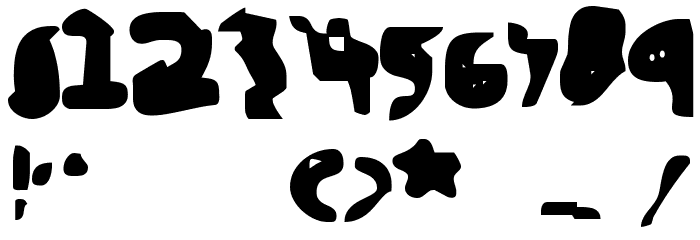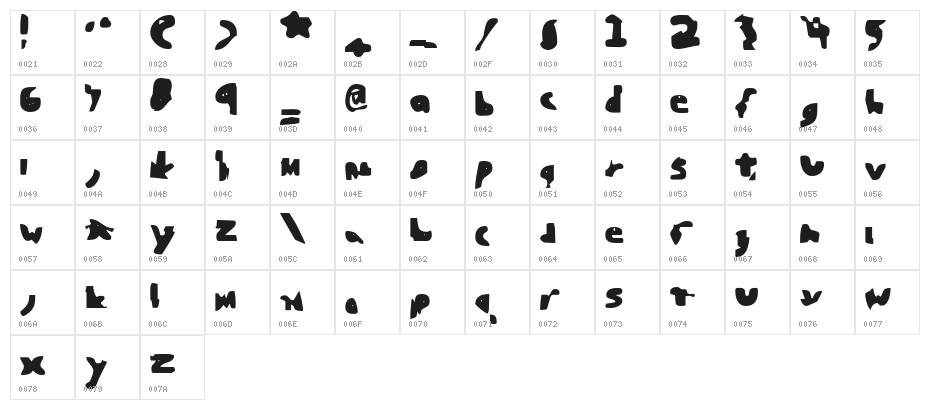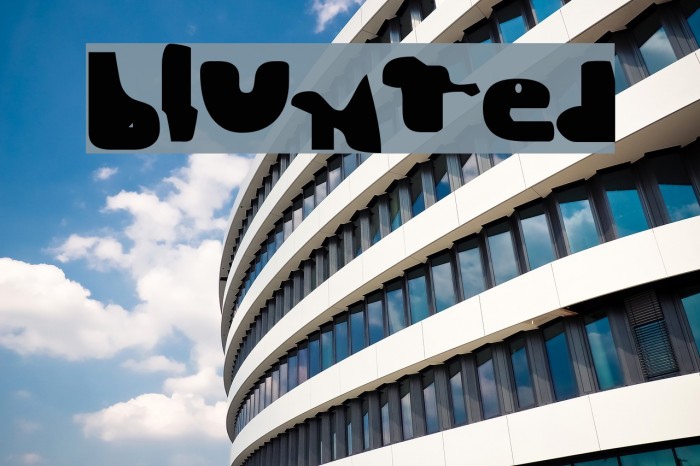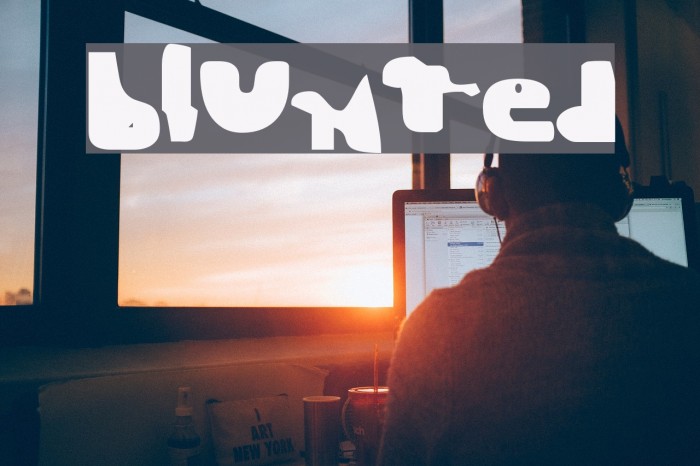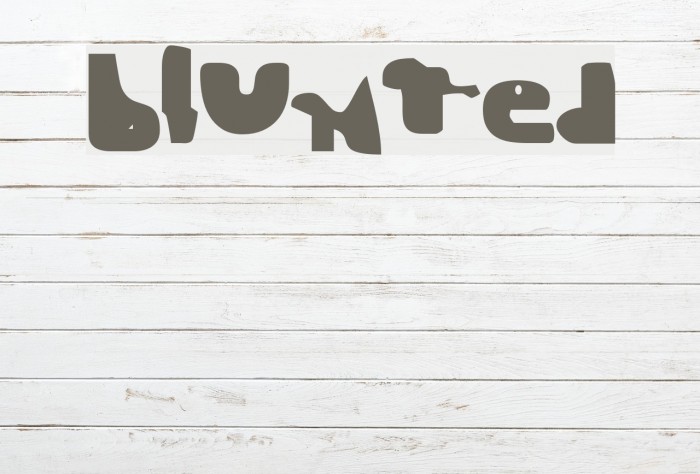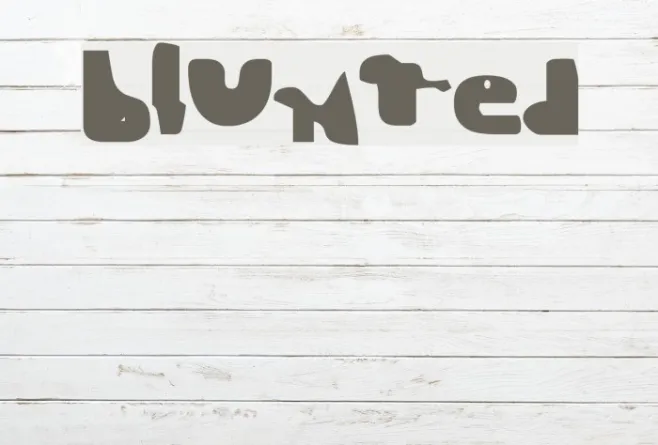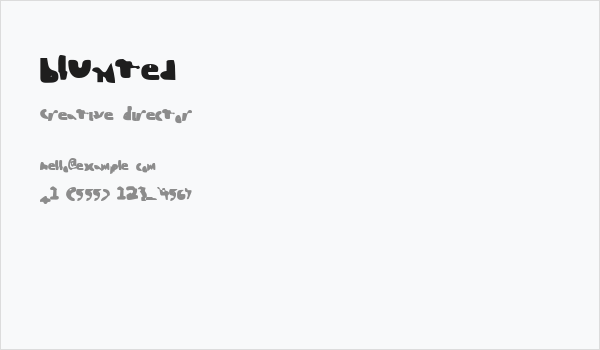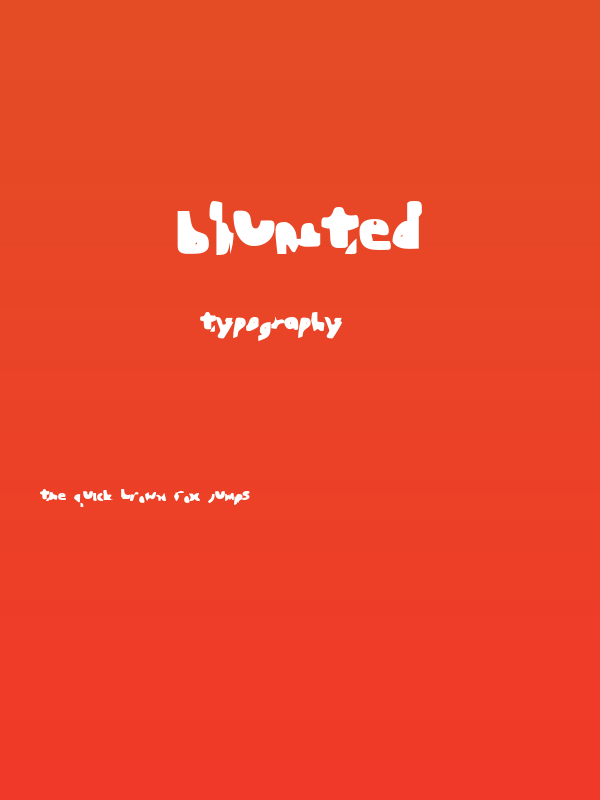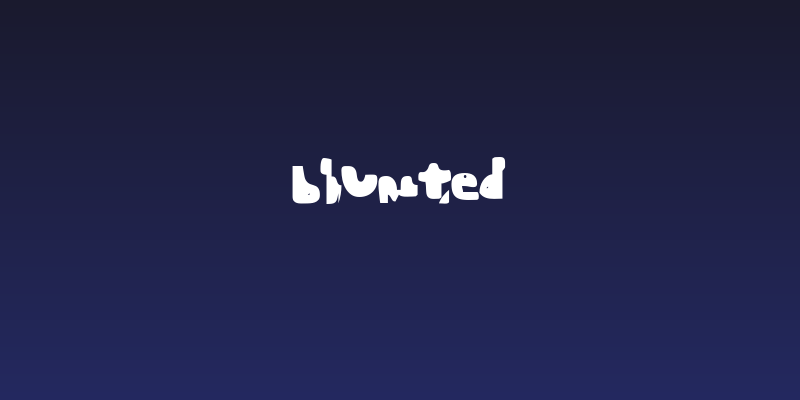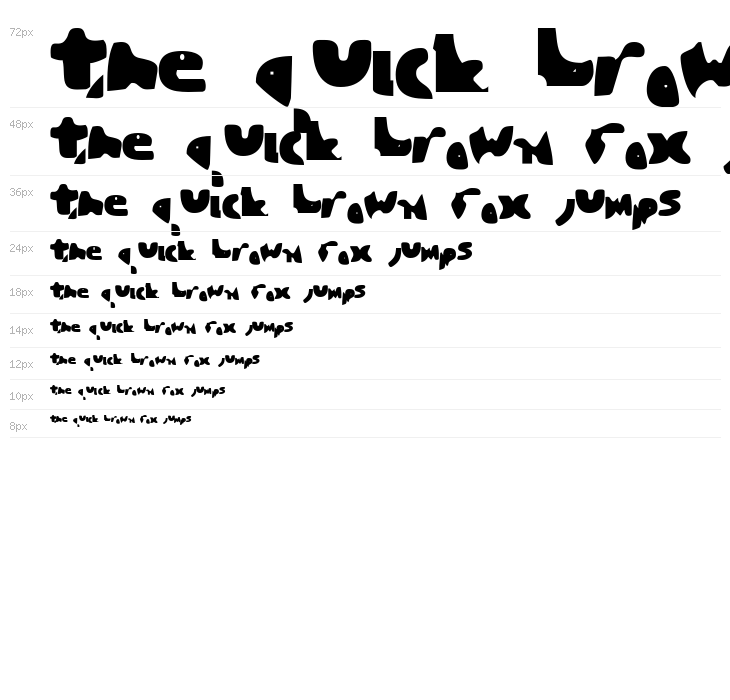
Blunted Font
Blunted Description
This font features a bold and playful design with exaggerated, rounded shapes that give it a unique and whimsical appearance. The characters are heavily stylized, with a chunky and irregular form that adds a sense of fun and creativity. The letters are closely spaced, contributing to its dense and impactful look. The font's thick strokes and lack of sharp edges make it visually striking and suitable for attention-grabbing designs. Its distinctive style is ideal for projects that require a bold and unconventional aesthetic.
| Use Case | Logos, Posters, Creative Designs |
| Proposed Projects | Perfect for children's books, playful branding, posters, and creative design projects. |